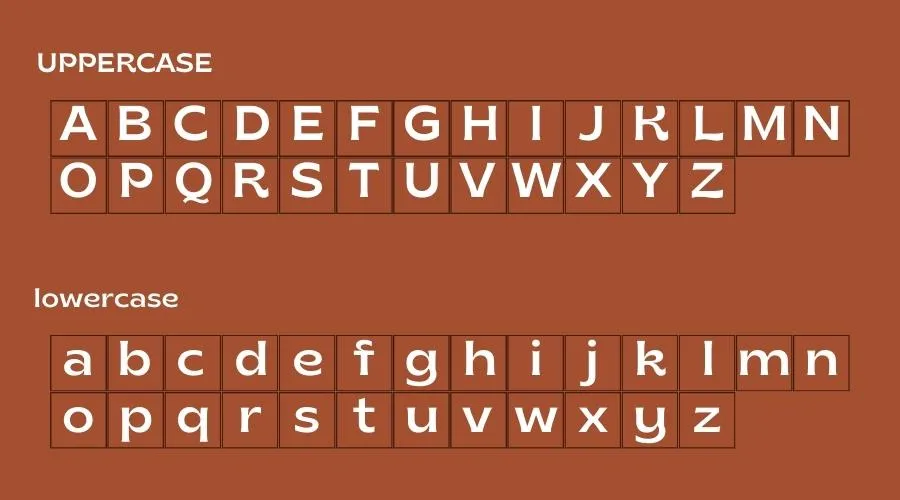
About Brice Font
Brice Font is designed by Cahya Sofyan in the event that you're looking for a distinctive and festive typeface, this one is a fantastic choice. It is a serif typeface.